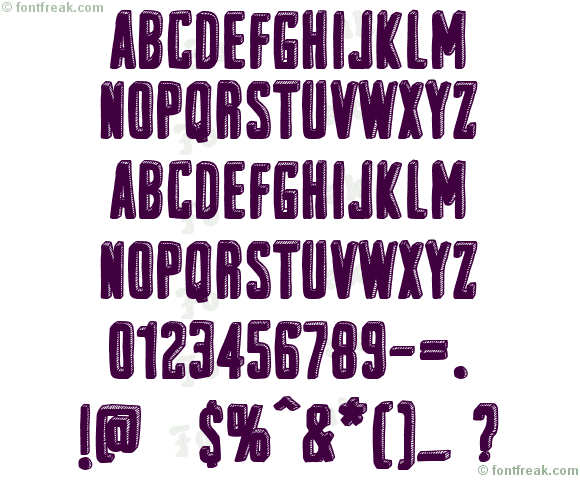
the Gallery
About the Gallery
The Gallery font by Woodcutter Manero is a distinctive display typeface that captures attention with its unique character. This font features a bold, textured design that brings an artisanal touch to any project. With its thick strokes and irregular, hand-drawn aesthetic, The Gallery stands out as a perfect choice for those looking to convey a sense of creativity and originality. The contrast in stroke weight adds depth, while the slightly uneven spacing enhances its handcrafted feel, making it ideal for projects that require a personal touch.
The Gallery font is particularly well-suited for a variety of creative applications. Its artistic vibe makes it an excellent choice for wedding invitations, where a touch of elegance and uniqueness is desired. It also shines in the realm of event posters, offering an eye-catching option for promoting art exhibitions or music festivals. Additionally, this font can elevate restaurant menus, infusing them with a charming, inviting quality that draws customers in. Content creators and graphic designers will find it useful for branding projects, logo designs, and social media graphics, where a memorable visual identity is crucial.
What sets The Gallery font apart is its delightful combination of playfulness and sophistication. It invites creativity while maintaining a professional edge, making it a valuable addition to any designer's toolkit. For anyone interested in adding a unique flair to their work, the Gallery font free download provides an opportunity to explore its potential in various creative endeavors.